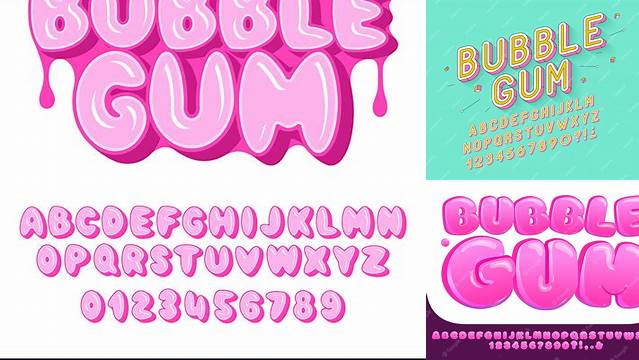
Bubble Gum Bold Font: Free Download For Fun Designs
Hey guys! Are you looking to add some playful vibes to your designs? You've come to the right place! Today, we're diving into the world of bubble gum bold fonts, those fun, chunky fonts that just scream childhood nostalgia and cheerful vibes. We'll explore everything from what makes these fonts so special to where you can find them for free download. Get ready to level up your design game!
1. What is Bubble Gum Bold Font?
So, what exactly is a bubble gum bold font? Well, imagine the kind of font you'd see on a vintage bubble gum wrapper – bold, chunky, and bursting with personality. These fonts are typically characterized by their rounded edges, thick strokes, and playful, almost cartoonish appearance. They often evoke a sense of fun, nostalgia, and lightheartedness, making them perfect for a wide range of design projects. When you think of bubble gum bold font, picture something that’s both eye-catching and approachable. This isn't your serious corporate font; it's the kind of typeface that makes you smile. It’s about bringing that youthful energy and vibrancy to your projects. Think about the last time you saw a product with a fun, inviting design – chances are, it incorporated a bold and playful font, maybe even something resembling our beloved bubble gum bold font. So, whether you're designing a poster, a logo, or even just a fun social media graphic, this type of font can really make your work pop and capture attention. The appeal of these fonts lies in their ability to be both readable and visually striking, a combination that’s crucial for grabbing attention in today’s visually saturated world. They’re not just fonts; they’re a statement, a way to inject personality and fun into the mundane, and that’s why they’re so popular in a variety of creative fields.
2. Characteristics of Bubble Gum Bold Fonts
Let's dig deeper into the key characteristics that make a font a true bubble gum bold font. The most obvious trait is, of course, its boldness. These fonts are thick and chunky, designed to stand out and make a statement. Think of them as the visual equivalent of shouting from the rooftops – in a fun, friendly way, of course! Beyond the boldness, you'll often find rounded edges, which contribute to the font's playful and approachable feel. Sharp, angular fonts can feel aggressive or formal, but rounded fonts soften the edges and create a more inviting visual experience. This makes bubble gum bold fonts particularly effective for designs aimed at children or those with a youthful spirit. Another common characteristic is a slightly irregular or hand-drawn feel. This doesn't mean the font is sloppy, but rather that it has a certain charm and personality that perfectly polished, geometric fonts often lack. This hand-drawn quality adds to the nostalgia factor, reminding us of vintage signage and hand-lettered designs. Finally, bubble gum bold fonts often feature exaggerated proportions or quirky details. This might include extra-tall ascenders and descenders, unusual letterforms, or playful swashes. These little details can really set a font apart and give it a unique personality. They also contribute to the font's overall sense of fun and whimsy. When you combine all these characteristics – boldness, rounded edges, a hand-drawn feel, and quirky details – you get a font that’s not just readable, but also memorable and engaging. That’s the magic of the bubble gum bold font, and it's what makes it such a versatile choice for a wide range of design projects.
3. Where to Use Bubble Gum Bold Fonts
So, you're captivated by bubble gum bold fonts, but where can you actually use them? The possibilities are surprisingly vast! These fonts are incredibly versatile and can inject a dose of fun and personality into a wide range of projects. One of the most popular applications is in branding, especially for businesses targeting children or those with a playful brand identity. Think about candy stores, toy shops, or even family-friendly restaurants – a bubble gum bold font can instantly communicate a sense of fun and approachability. They're also fantastic for posters and flyers, especially for events like birthday parties, carnivals, or school fairs. The boldness and eye-catching nature of these fonts make them perfect for grabbing attention and conveying excitement. In the digital realm, bubble gum bold fonts can be used effectively in website headers, social media graphics, and even app interfaces. They can help create a welcoming and engaging online experience, especially for websites or apps aimed at a younger audience. Don't forget about packaging design! These fonts are a natural fit for products like candy, snacks, and toys. They can help create packaging that stands out on the shelf and appeals to both kids and adults. But the versatility doesn't stop there. Bubble gum bold fonts can also be used in t-shirt designs, greeting cards, and even educational materials. The key is to use them strategically and in contexts where their playful nature is an asset, not a distraction. The charm of these fonts lies in their ability to evoke joy and nostalgia, making them an excellent choice for projects that aim to create a positive and memorable impression.
5. Popular Bubble Gum Bold Font Styles
Now, let's talk styles! Within the realm of bubble gum bold fonts, there's a surprising amount of variety. It's not just about bold and rounded; there are different nuances and aesthetics that can make one font feel distinct from another. One popular style is the classic, retro bubble gum font, reminiscent of vintage packaging and signage. These fonts often have a slightly distressed or textured appearance, adding to their nostalgic charm. Think of the fonts you might see on old-fashioned soda bottles or candy wrappers – that's the vibe we're going for here. Another style that's gaining popularity is the modern, clean bubble gum bold font. These fonts retain the boldness and roundedness of the classic style, but with a more streamlined and contemporary look. They're perfect for projects that need a touch of fun without feeling overly retro. There are also handwritten or script-style bubble gum bold fonts. These fonts mimic the look of hand-lettering, adding a personal and whimsical touch to your designs. They're great for projects that need a more organic and handcrafted feel. And let's not forget the quirky and playful bubble gum bold fonts that feature unusual letterforms or exaggerated details. These fonts are all about making a statement and standing out from the crowd. They're perfect for projects that need a real dose of personality. When choosing a bubble gum bold font, consider the overall tone and style of your project. Do you want something retro and nostalgic, or something modern and clean? Do you need a font that feels handwritten and personal, or something more structured and bold? By understanding the different styles available, you can choose the perfect font to bring your vision to life. Each of these styles has its unique charm, making bubble gum bold font a diverse and fascinating category within the world of typography.
7. Using Bubble Gum Bold Fonts in Logos
Let's talk logos! A well-chosen font can make or break a logo, and a bubble gum bold font can be a fantastic choice for brands that want to project a fun, playful, and approachable image. But using these fonts effectively in logo design requires some careful consideration. The first thing to think about is your brand identity. Does a bubble gum bold font align with your brand's personality and values? If you're a serious, corporate brand, a playful font might not be the best fit. But if you're a brand that caters to children, sells fun products, or wants to project a youthful energy, then a bubble gum bold font could be perfect. When using these fonts in a logo, keep it simple and legible. The boldness of the font already makes it stand out, so you don't need to add a lot of extra flourishes or effects. A clean and simple design will ensure that your logo is easily recognizable and memorable. Pay attention to the kerning and spacing of the letters. Bubble gum bold fonts can sometimes have unusual letterforms or proportions, so it's important to adjust the spacing carefully to ensure that the logo looks balanced and harmonious. Experiment with different color combinations. The boldness of the font means that it can work well with a wide range of colors, but some colors will complement it better than others. Think about colors that evoke the same feeling as the font – bright, cheerful colors like pink, blue, and yellow can be a great choice. Finally, consider the overall context in which your logo will be used. Will it be used on your website, on social media, on packaging, or in print materials? Make sure that the logo looks good in all these different contexts. A bubble gum bold font can be a powerful tool for logo design, but it's important to use it thoughtfully and strategically. When done right, it can help your brand stand out and make a lasting impression.
8. Designing Posters with Bubble Gum Bold Fonts
Posters are all about grabbing attention, and bubble gum bold fonts are practically designed for this purpose! Their bold, playful nature makes them ideal for creating posters that stand out and make a statement. But like any design element, they need to be used effectively to achieve the best results. When designing a poster with a bubble gum bold font, think about the overall message you want to convey. Is it a fun, lighthearted event like a birthday party or a carnival? Or is it something more serious, like a school fundraiser? The tone of the font should match the tone of the event. The size and placement of the font are crucial. Bubble gum bold fonts are meant to be seen, so don't be afraid to go big! Use the font as a central element of your design, and make sure it's large enough to be easily read from a distance. Think about the hierarchy of information. What's the most important thing you want people to know? Make sure that information is the most prominent, both in terms of size and placement. Use the bubble gum bold font for the headline or the main event details, and use a simpler font for secondary information like the date, time, and location. Color is your friend! These fonts work well with bright, bold colors that complement their playful nature. Think about using contrasting colors to make the font really pop. A bubble gum bold font on a bright background can be incredibly eye-catching. Don't overcrowd your poster. Leave plenty of white space around the font and other design elements to give them room to breathe. A cluttered poster can be overwhelming and difficult to read. Finally, consider the overall aesthetic you're going for. Are you aiming for a retro vibe, or something more modern? The style of the bubble gum bold font you choose should align with your overall design aesthetic. With these tips in mind, you can create posters that are both fun and effective, using the power of bubble gum bold fonts to capture attention and convey your message.
9. Social Media Graphics and Bubble Gum Bold Fonts
In the fast-paced world of social media, grabbing attention is key, and bubble gum bold fonts can be a secret weapon in your arsenal! These fonts are perfect for creating eye-catching graphics that stand out in a crowded feed. But using them effectively on social media requires a slightly different approach than using them in print. One of the most important things to consider is readability. Social media graphics are often viewed on small screens, so you need to make sure that your font is clear and legible, even at a small size. Choose a bubble gum bold font that has clean lines and well-defined letterforms. Keep your text concise. People scroll quickly through social media feeds, so you have a limited amount of time to get your message across. Use short, punchy headlines and captions that are easy to read and understand. Color is even more important on social media than it is in print. Use bright, vibrant colors that will make your graphics stand out. But be careful not to use too many colors, as this can be overwhelming. Consider the platform you're using. Each social media platform has its own visual style and audience. A bubble gum bold font might be perfect for Instagram or TikTok, but it might not be the best choice for LinkedIn. Use visuals to complement your text. A strong image or graphic can enhance your message and make your social media posts even more engaging. Think about using a bubble gum bold font for your headlines and then pairing it with a fun illustration or photograph. Maintain brand consistency. If you're using a bubble gum bold font in your social media graphics, make sure it aligns with your overall brand identity. Use the same font consistently across all your posts to create a cohesive look and feel. Finally, test and iterate. Social media is all about experimentation. Try out different fonts, colors, and designs, and see what works best for your audience. Use analytics to track your results and make adjustments as needed. With the right approach, you can use bubble gum bold fonts to create social media graphics that are both fun and effective, helping you to connect with your audience and achieve your goals.
10. Website Design and Bubble Gum Bold Fonts
When it comes to website design, typography plays a crucial role in shaping the user experience. Bubble gum bold fonts, with their playful and attention-grabbing nature, can be a fantastic addition to a website's visual identity, but they need to be used strategically. Think about your brand personality. Does a bubble gum bold font align with your brand's overall message and tone? These fonts are best suited for brands that want to project a fun, youthful, and approachable image. If your brand is more serious or professional, a different font style might be a better fit. Consider the user experience. While bubble gum bold fonts are great for headlines and accents, they might not be the best choice for body text. Long blocks of text in a bold, playful font can be tiring to read. Use a simpler, more legible font for the body text and reserve the bubble gum bold font for headlines, subheadings, and call-to-action buttons. Think about readability. Just like with social media graphics, readability is crucial on a website. Make sure the font is clear and easy to read, even on different screen sizes. Choose a font that has well-defined letterforms and sufficient spacing. Contrast is key. Use contrasting colors for your text and background to ensure that the text is easy to read. A bubble gum bold font on a light background can be very effective, but make sure there's enough contrast to avoid eye strain. Consider the overall design aesthetic. The font should complement the overall design of your website. If you're using a minimalist design, a bubble gum bold font can add a pop of personality. But if your design is already busy and colorful, a simpler font might be a better choice. Use whitespace effectively. Whitespace, or negative space, is the empty space around your text and other design elements. It helps to create a clean and uncluttered design, making your website more visually appealing and easier to navigate. Finally, test your website on different devices and browsers. Make sure the font looks good on different screen sizes and that it displays correctly in different browsers. With careful planning and execution, you can use bubble gum bold fonts to create a website that is both visually appealing and user-friendly, helping you to engage your audience and achieve your online goals.